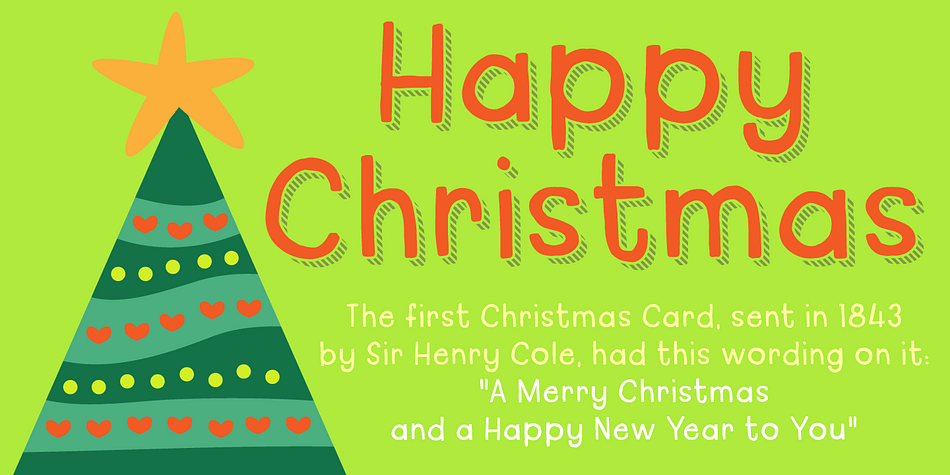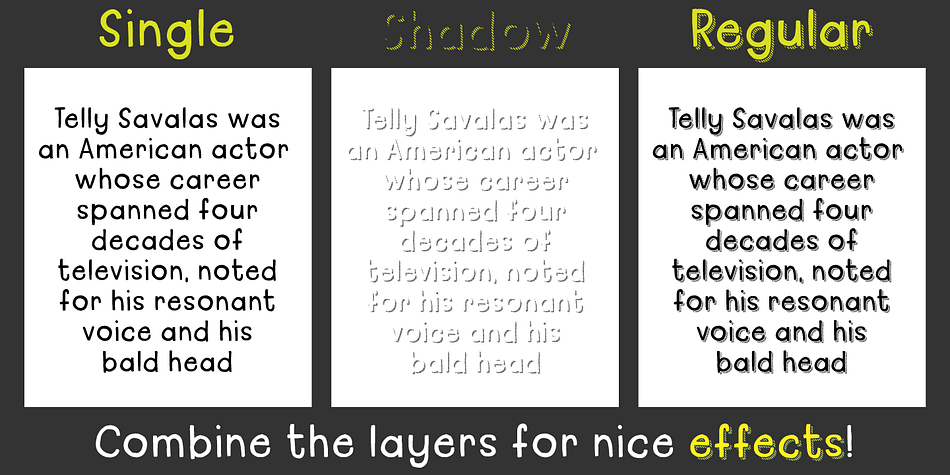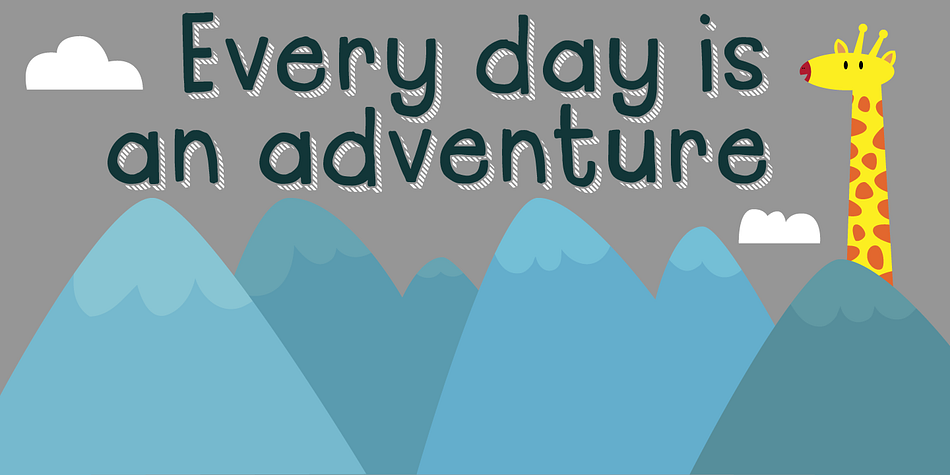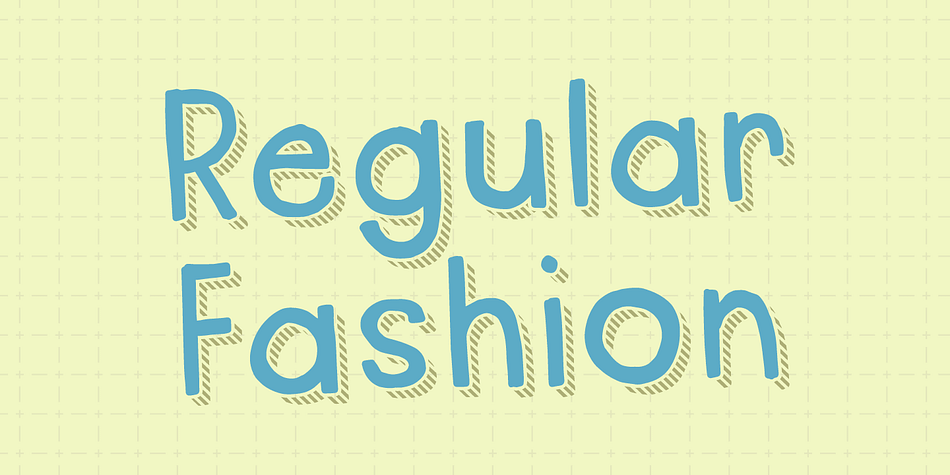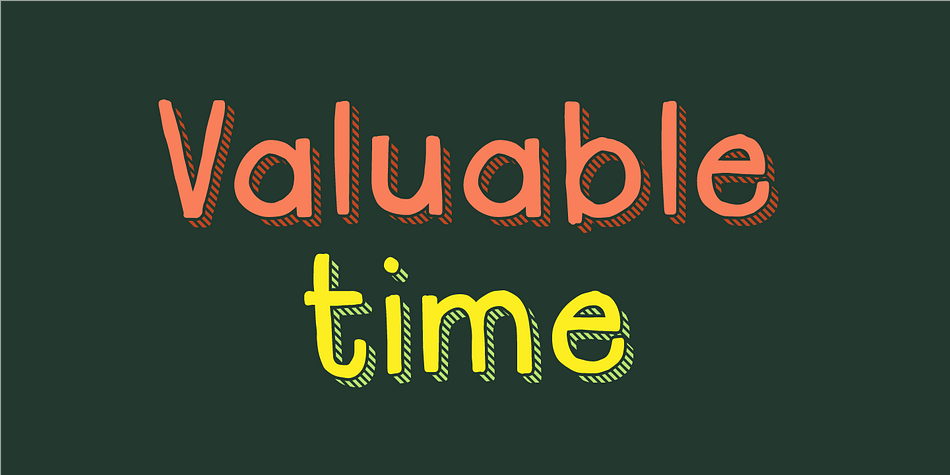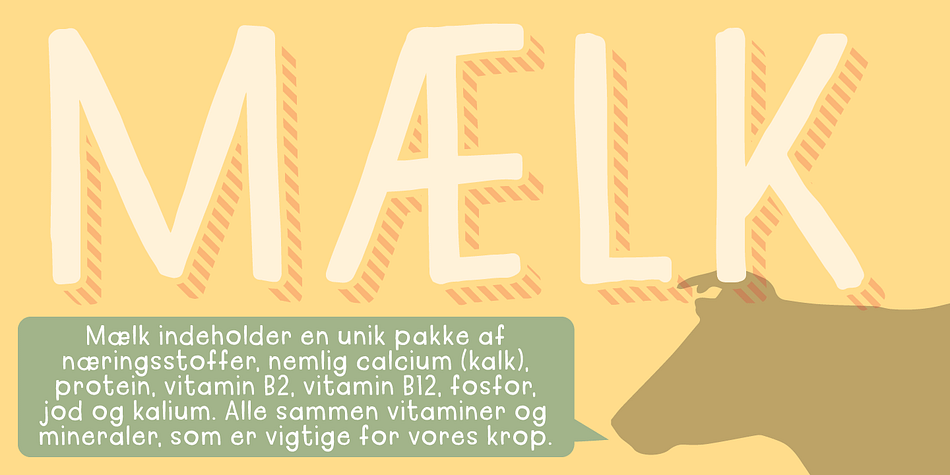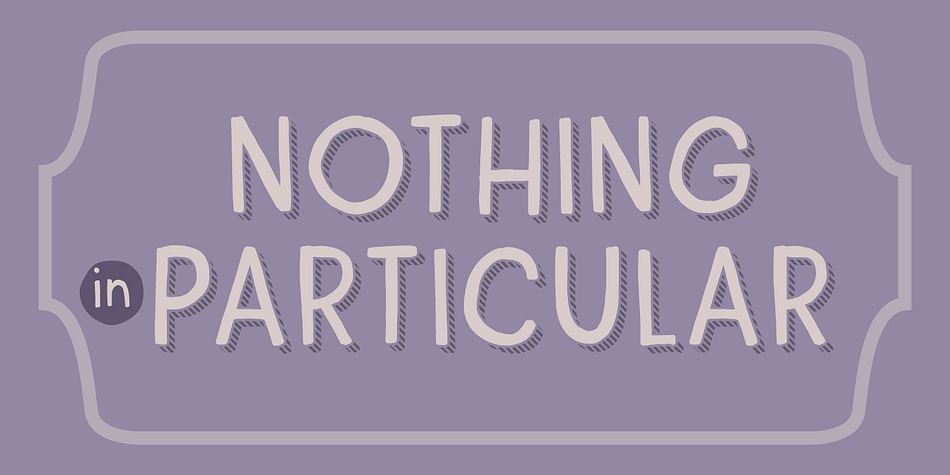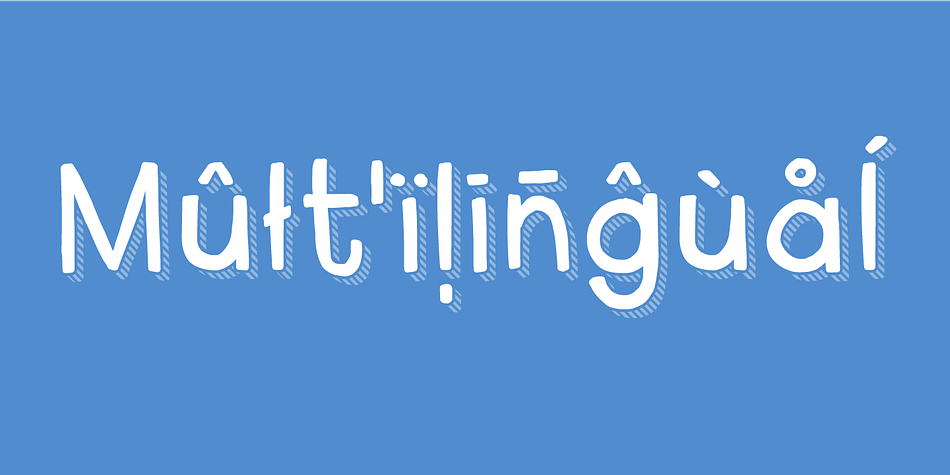
Designed by Jakob Fischer, Regular Fashion is a comic and hand drawn font family. This typeface has three styles and was published by Pizzadude.dk.
I have wanted to do a font like this for a long time. The other day when I stumbled upon some old drawings from my daughter, I noticed her name written with letters slightly like the ones found in Regular Fashion. That convinced me that this was the time to do this kind of font!
Enjoy the 3 different versions: Regular, Single and Shadow and play around for nice effects!